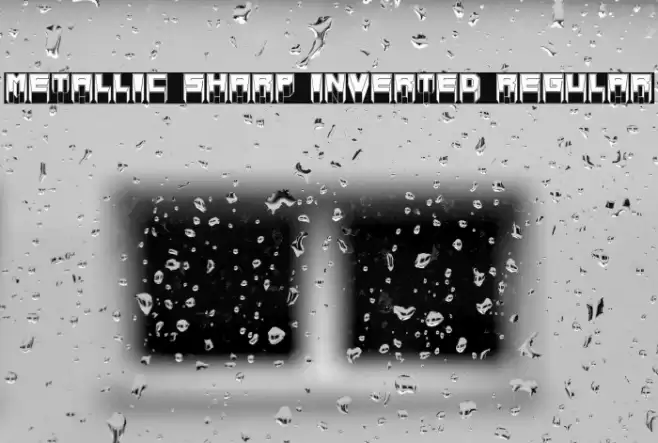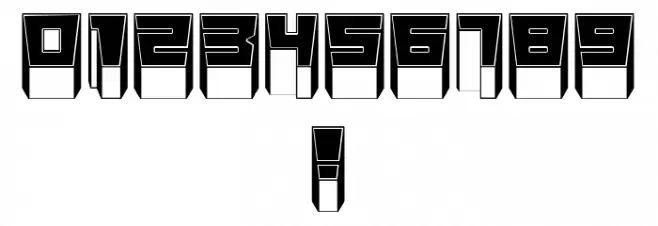
Metallic Sharp Inverted Regular Font
Metallic Sharp Inverted Regular Description
This font features a bold, three-dimensional design with a metallic and sharp appearance. Each character is crafted with a distinct block-like structure, giving it a strong and impactful presence. The letters and numbers are designed with an inverted shading effect, creating a striking contrast between the black outlines and the white inner spaces. The font's geometric and angular style makes it stand out, ideal for projects that require a futuristic or industrial feel. The uniformity in character height and width ensures a consistent look across all text, while the sharp edges and clean lines add a modern touch.
A bold, three-dimensional font with a metallic, sharp, and geometric design from Uncategorized fonts.
- Proposed Projects: Ideal for use in branding, logos, posters, video game graphics, and any project needing a futuristic or industrial aesthetic.